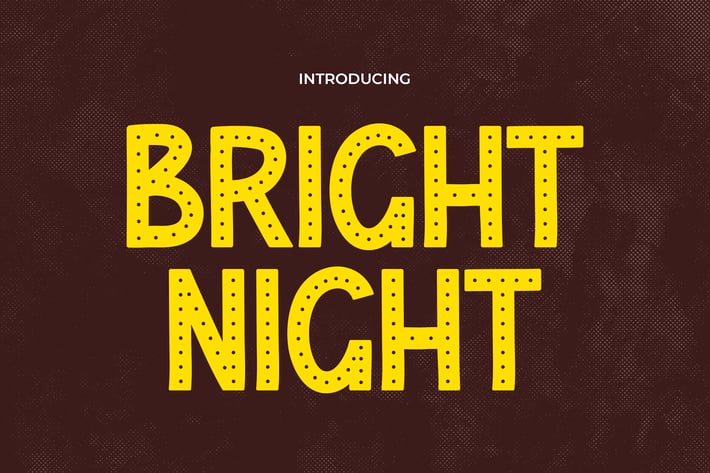
Bright Night - A Retro Disco Vintage Font
Bright Night
Bright Night is a high-impact dotted display font that fuses a bold, geometric structure with retro marquee-style charm—instantly evoking the glow of neon signs and nightlife posters. With expressive round terminals and a rhythmic dot pattern built into the strokes, it captures an energetic, festive vibe. Designed for visual storytelling, it’s ideal for entertainment graphics, especially where attention-grabbing headlines are a must.
Whether you're designing for a retro-themed club flyer, a digital banner, or a social media promo, Bright Night brings the energy of stage lights and vintage cinema signage. It’s perfect for creatives in entertainment, fashion, and nightlife branding—offering a distinct identity that elevates your visuals with style and confidence.
Key Features :
Bold Dotted Display with Retro Glow
Make a statement with stylized letters that channel a cinematic and stage-ready presence.
Versatile for Headline-Driven Designs
Perfect for posters, signage, event invites, or anything needing a bold entrance.
Attention-Grabbing and Emotionally Charged
Built to spark curiosity and nostalgia in your audience with just a glance.